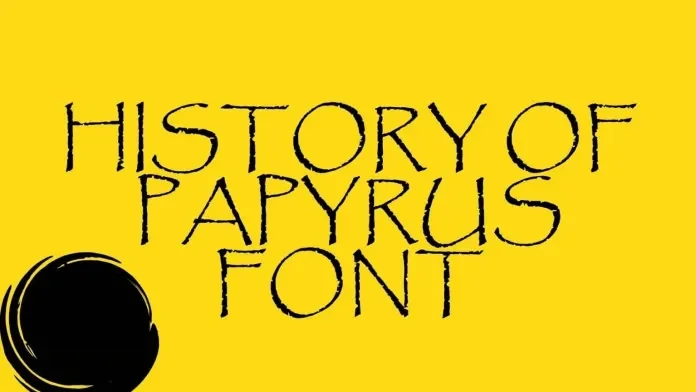
Papyrus font is one of the most recognizable fonts in the world. Its rough edges, textured strokes, and organic design give it the feel of something ancient, like script written on parchment or scrolls. You’ll often see it in designs that want to look natural, earthy, or spiritual.
- Designer: Chris Costello
- Released: 1983
- Style: Hand-drawn, distressed serif
Papyrus stands out for several reasons:
- Handwritten look with uneven, brush-like strokes
- Weathered edges that give it an aged, historic feel
- Calligraphic flow, adding a natural and artistic vibe
- Not ideal for body text, but great for headlines, posters, and logos
Papyrus works well in branding, invitations, or event flyers that need an authentic, handcrafted look. For a clean contrast, try pairing it with sans-serif fonts like Avenir or Open Sans the balance between rustic and modern creates strong visual harmony.